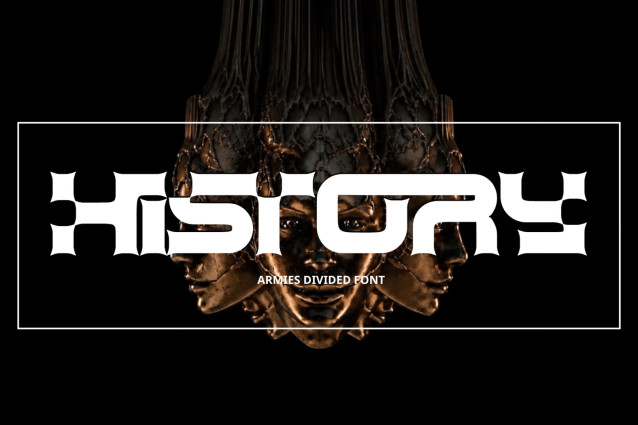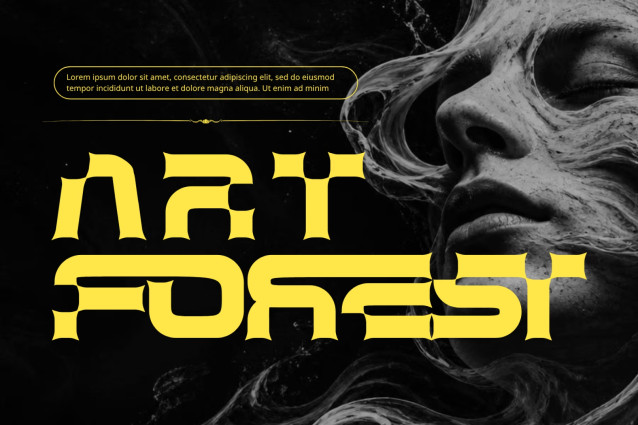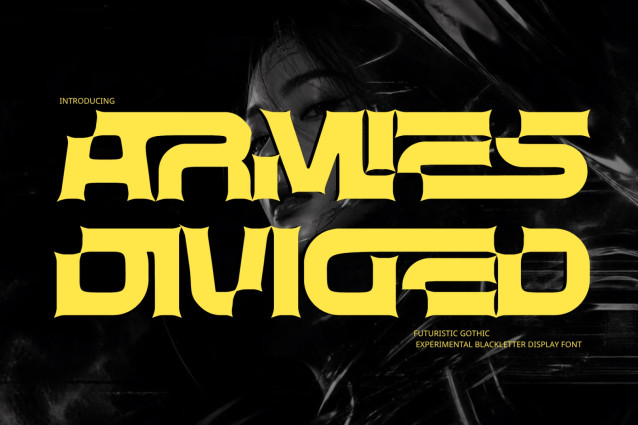
Armies Divided – Cyber Font
Armies Divided – Cyber Font – Modern Spiky Cyber Gothic & Heavyweight Extended Display Font is an aggressive, high-impact display typeface engineered at the fierce intersection of modern spiky gothic geometry, ultra-wide cyberpunk proportions, and heavy tribal stencil aesthetics. Defined by its heavyweight block stance, sharp concave-flared thorn terminals, and precision negative-space cutouts, this font commands absolute visual authority across modern digital layouts.
Designed to convert display headlines into dominant, custom logotypes, Armies Divided delivers a raw, military-grade cybernetic energy. Its massive horizontal presence and razor-sharp decorative points make it the ultimate typographic choice for esports brandings, action gaming titles, cyberpunk streetwear apparel, electronic/metal music festival posters, energy drink packaging, and high-concept key visuals.